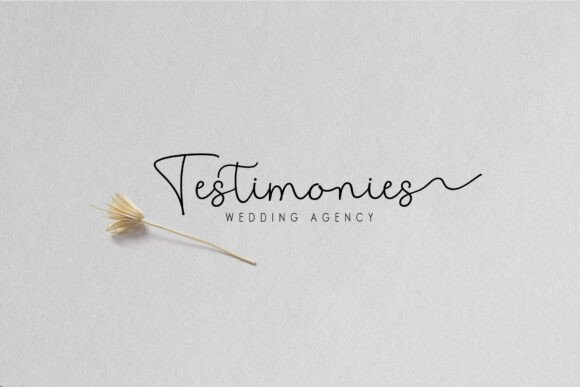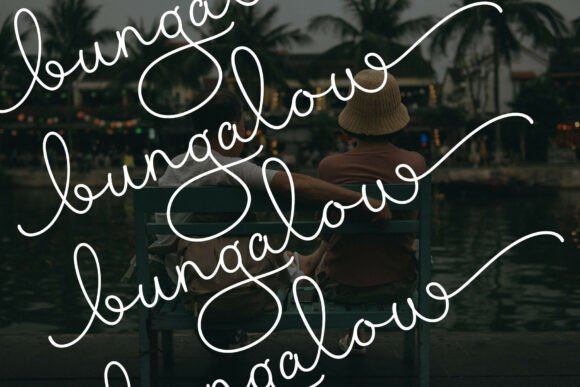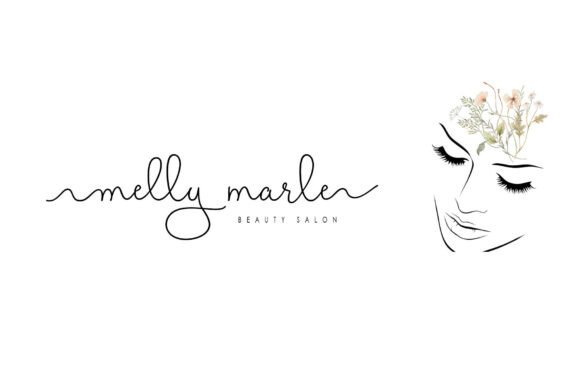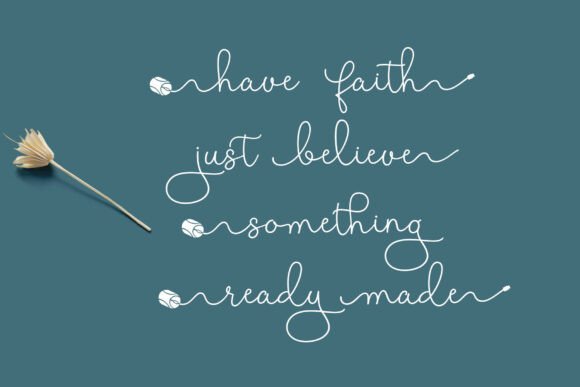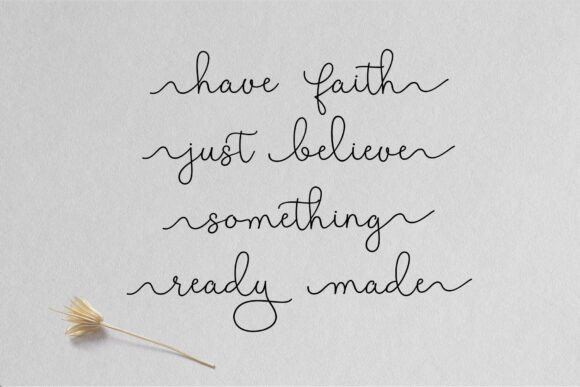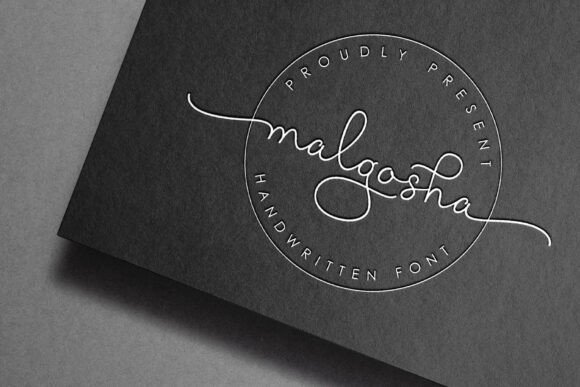
Introduction to Malgosha Font Font
Fonts play a crucial role in design, and the Malgosha Font font is a typeface that brings both character and versatility to any project. Whether you’re working on a branding project, a website, or a print design, the Malgosha Font font offers a unique style that can elevate your work.
Unveiling Malgosha, an alluring, hand-scripted font designed to bring elegance and charm to a plethora of applications.
From wedding stationary that captures the heart and soul of your special day, to sophisticated handwritten branding that makes a statement, Malgosha is versatility personified Itβs also perfect for social media quotes and websites that strive for a delicate, personal touch.
Key Features of Malgosha Font Font
Why Choose Malgosha Font Font?
The Malgosha Font font is more than just a typeface β it’s a design tool that helps you communicate your message with style and clarity. Its unique character set and versatile design make it suitable for a wide range of applications, from elegant invitations to bold headlines.
With its carefully crafted letterforms and balanced proportions, the Malgosha Font font ensures readability and visual appeal across all mediums.
What makes Malgosha Font font special?
The Malgosha Font font stands out with its unique design, exceptional readability, and versatility across various design applications.